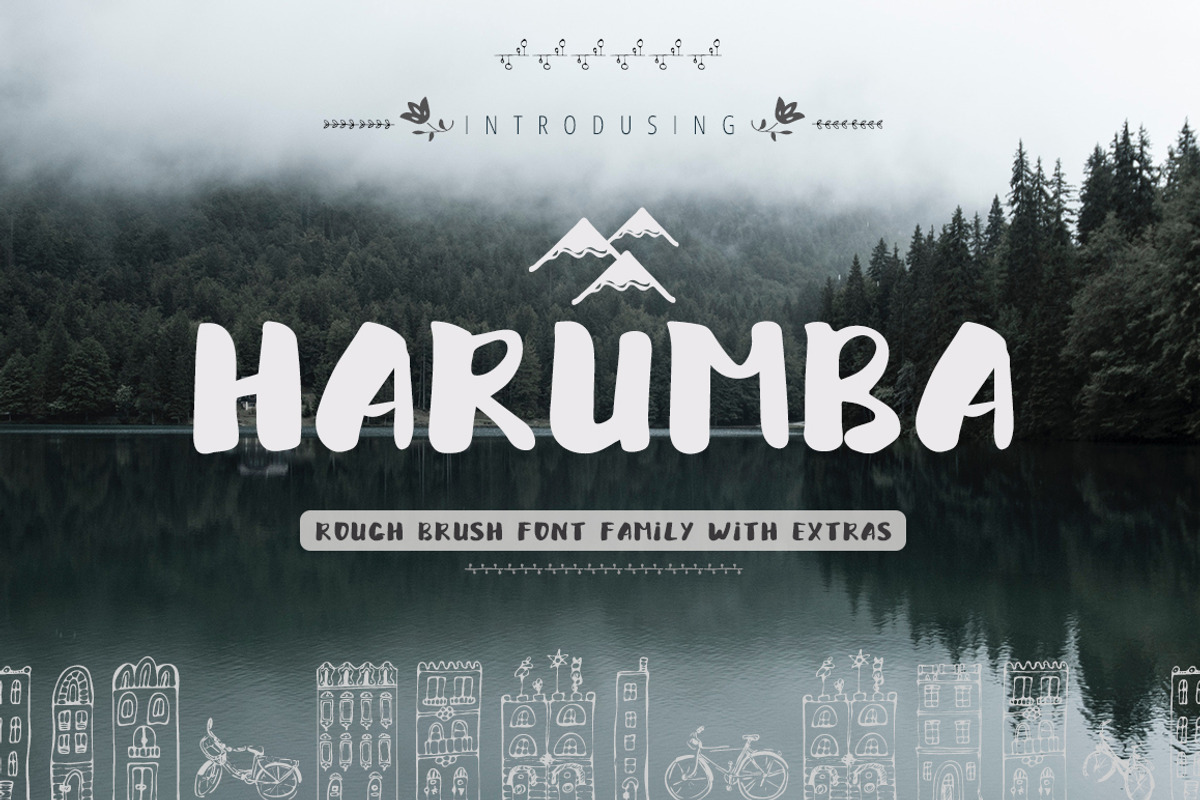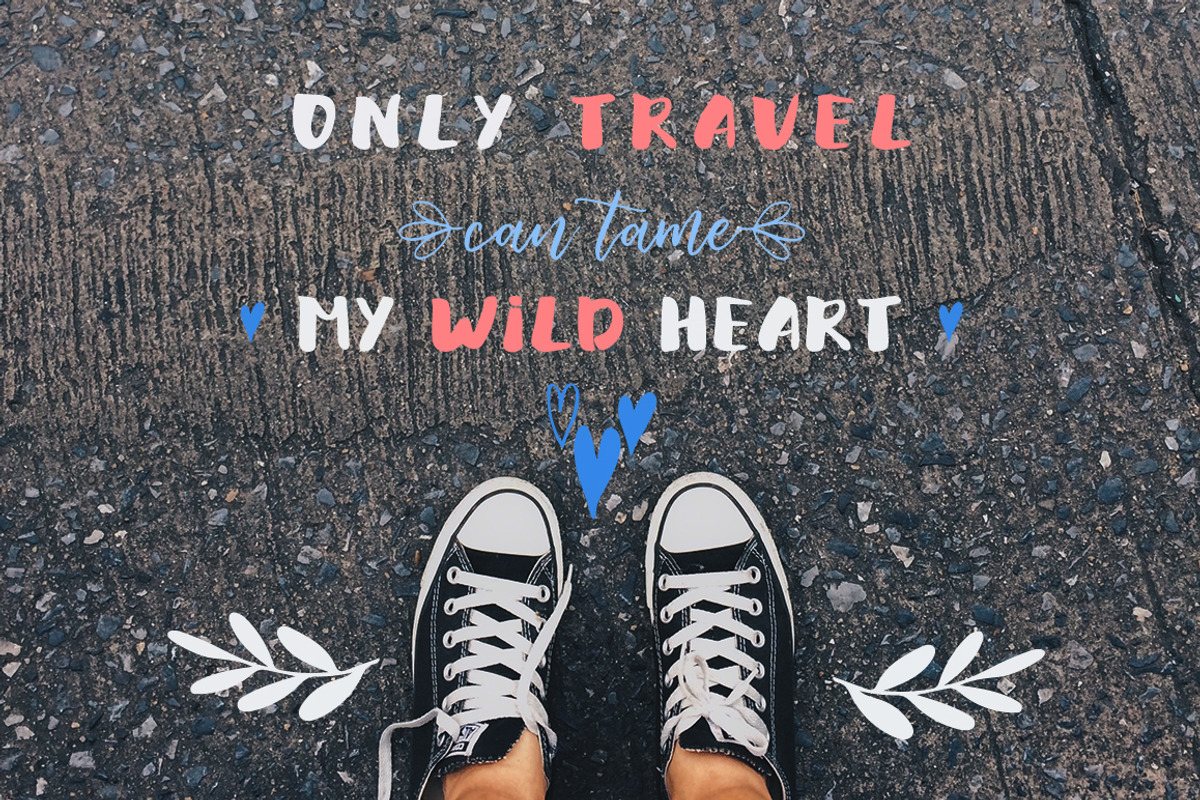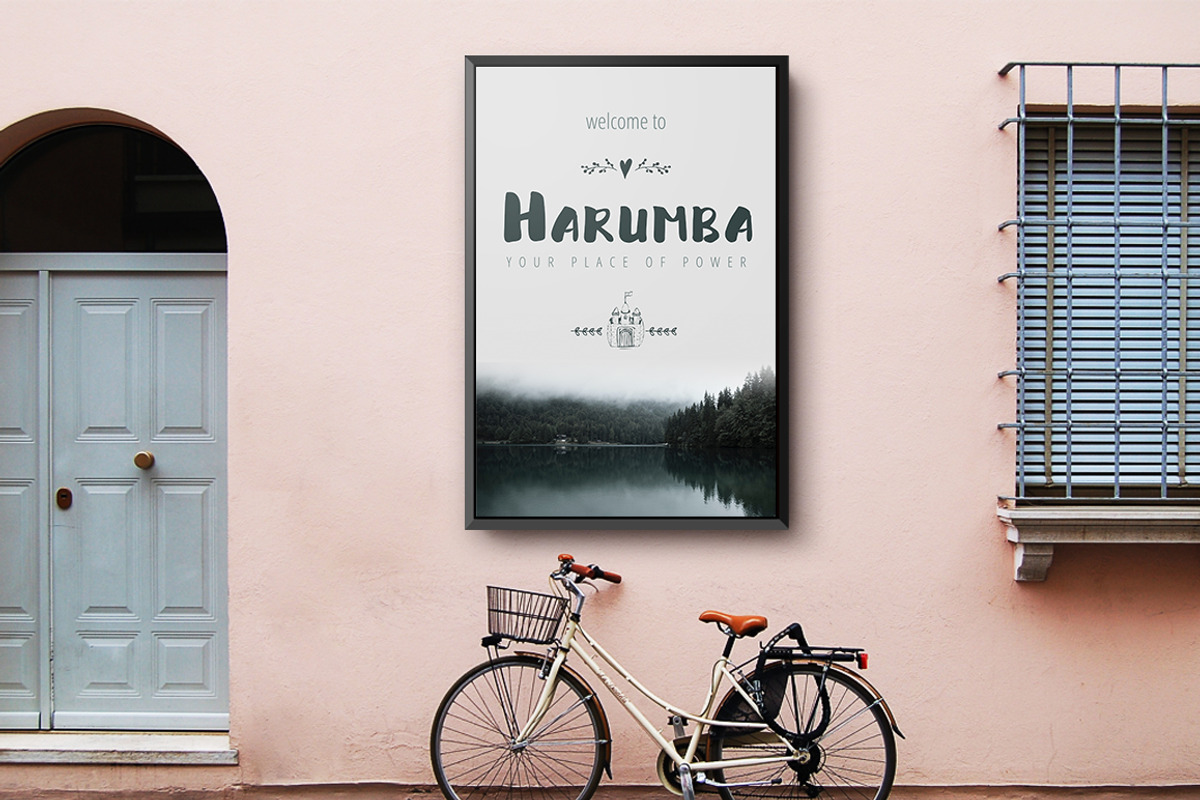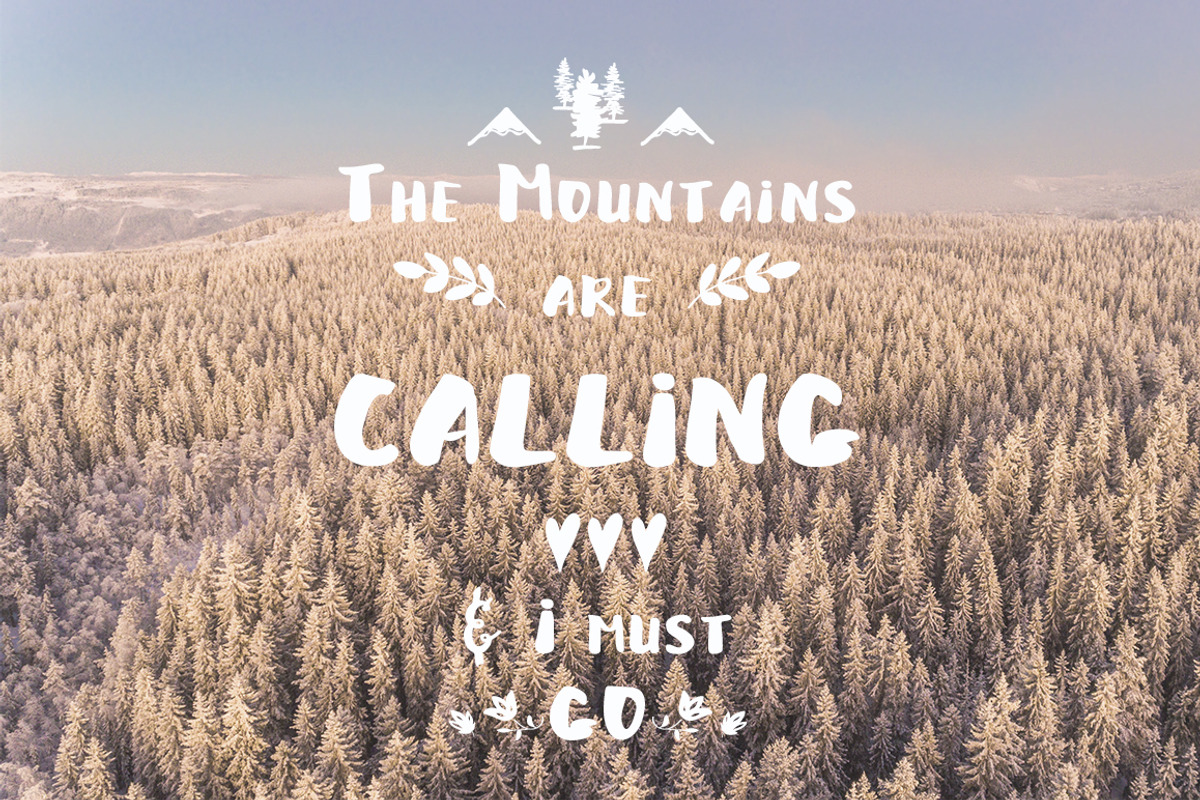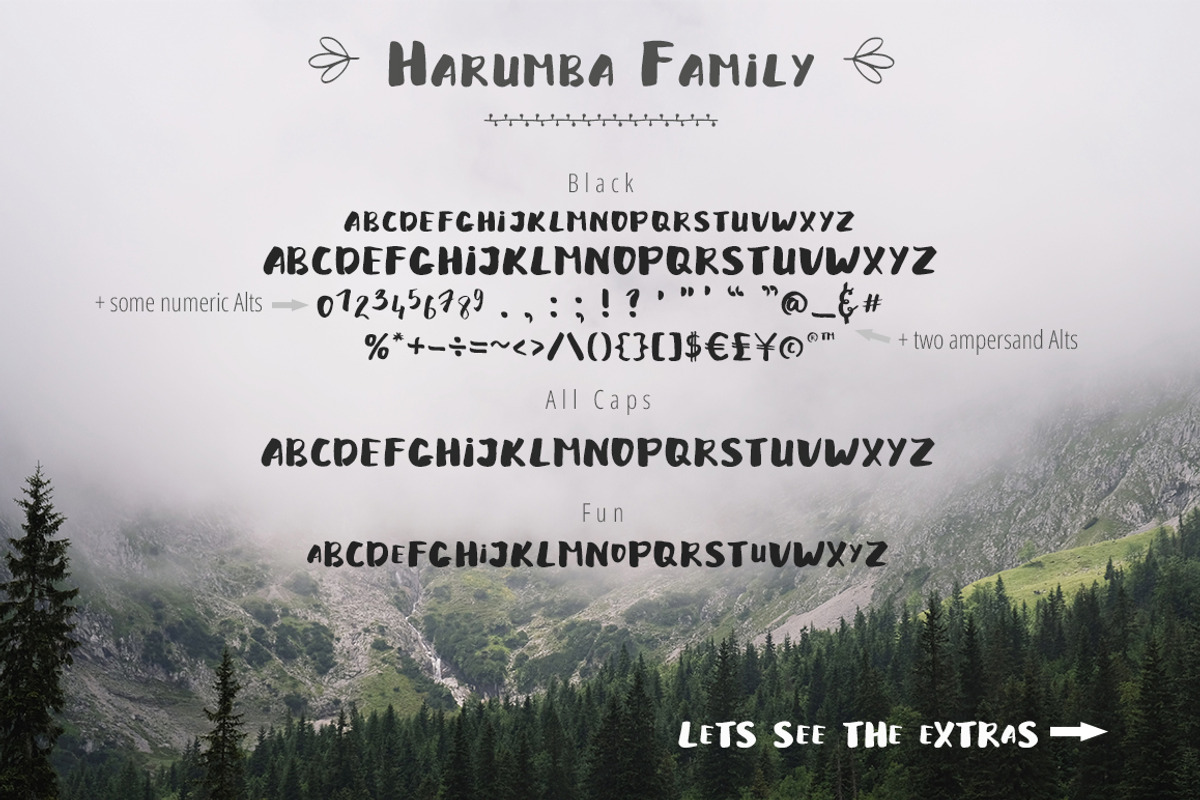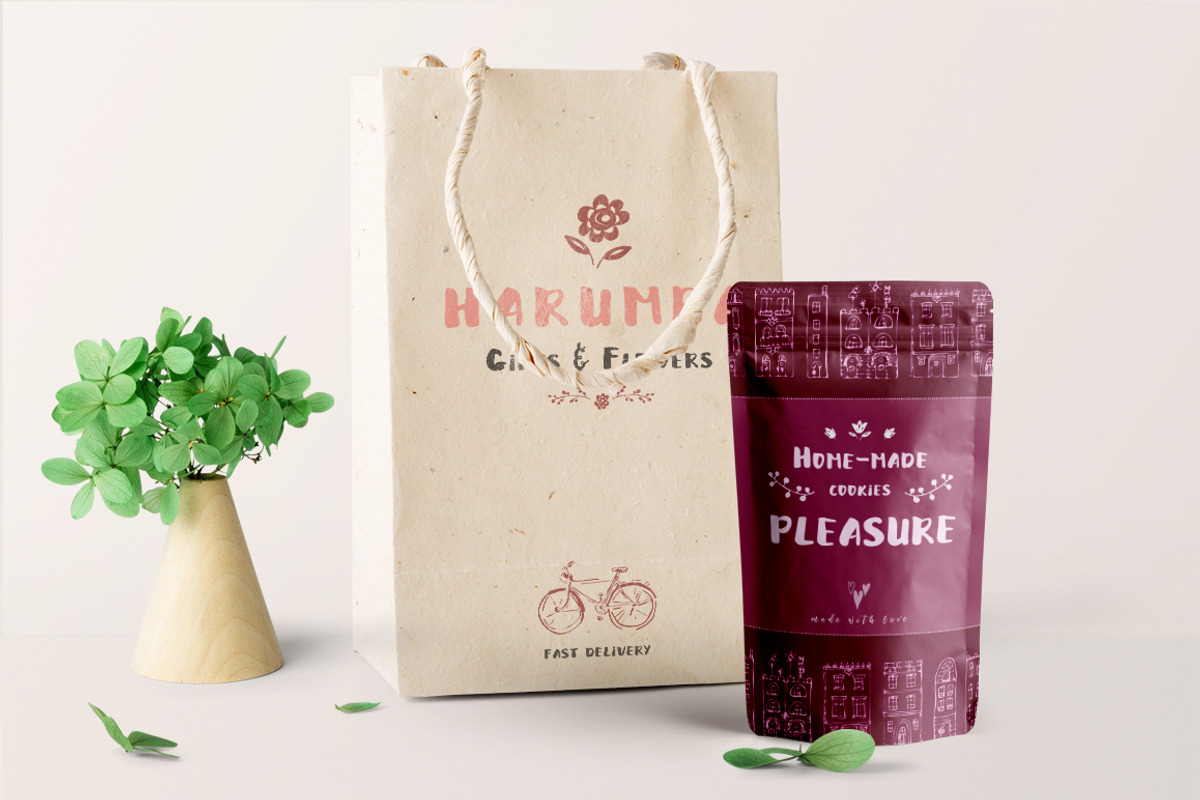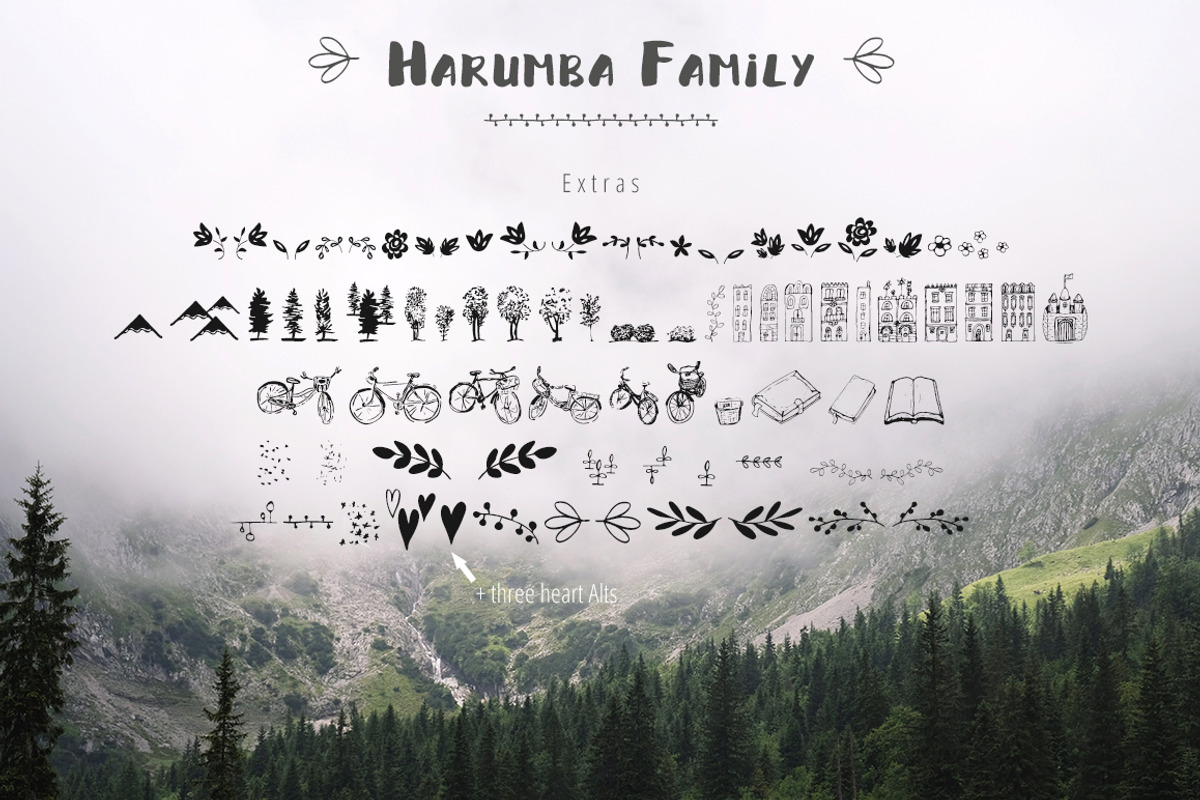
Harumba Brush font
Happy to introduce to you a rough, handlettered Harumba Brush font family.
Harumba is a city hidden deep inside the mountain. Its arch supports huge columns. They are so high that there are the buildings, shops, houses. The city is so large that residents move on it on bicycles, not daring to spoil the atmosphere with exhaust fumes. They are busy in order to comfortably equip their lives, they do not want to leave it because of the special magic living under these arches.
HarumbaBrush fam includes:
HarumbaBrush Black, All Caps, Fun fonts
Why Harumba Brush font is worth a look
Harumba Brush font by Gray Cat Graphics fits naturally into Branding, posters, packaging, typography.